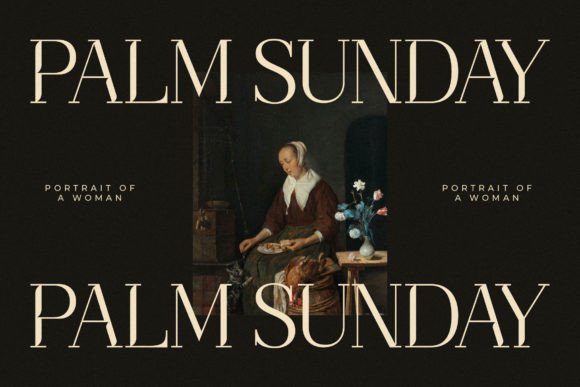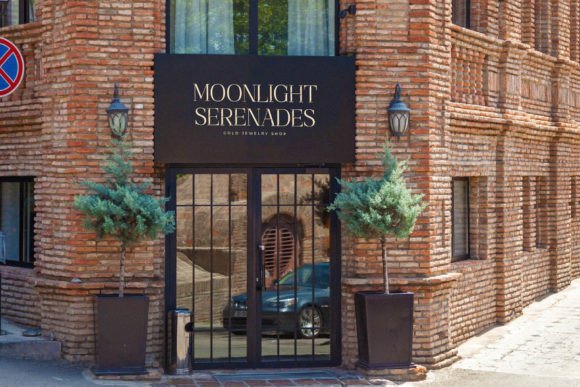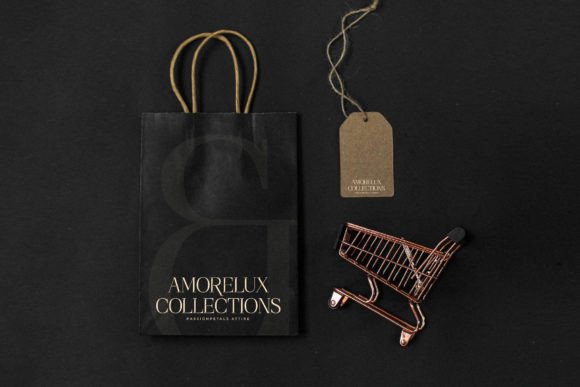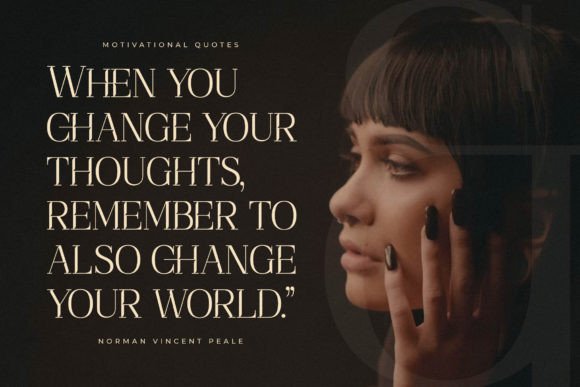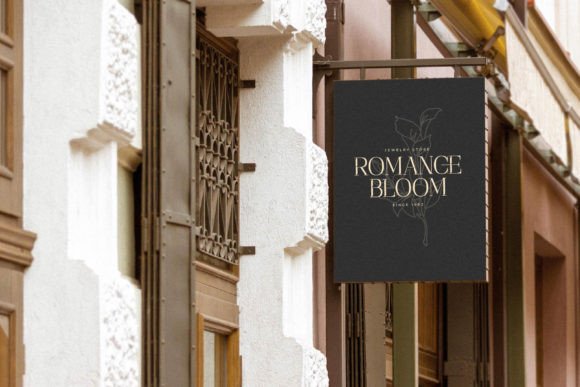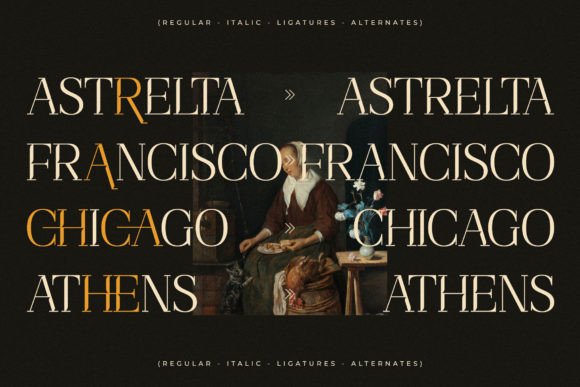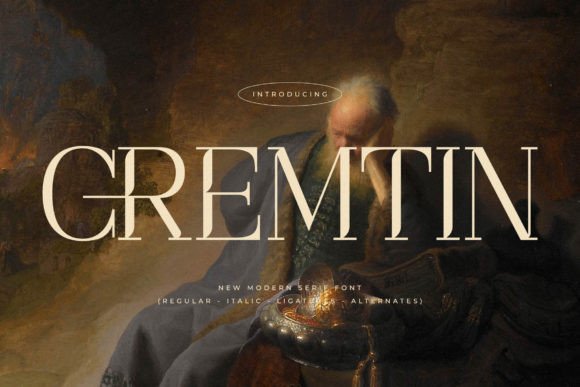
Cremtin Font: Elevate Your Designs with Elegance and Sophistication
In the world of typography, a well-crafted font can make all the difference in elevating your design to new heights. Introducing Cremtin Typeface, a stunning serif font created by Storytype that embodies the perfect blend of modernity and classic elegance. With its unique style and modern look, Cremtin Font is the ideal choice for designers and crafters seeking to add a touch of luxury and sophistication to their projects.
A Modern Classic: The Cremtin Typeface
Cremtin Font boasts a distinctive design that sets it apart from other serif typefaces. Its clean lines, precise curves, and balanced proportions create a harmonious visual experience that exudes refinement and poise. Whether you’re working on a logo, book or movie title, fashion brand, magazine, or clothing design, Cremtin Font provides the perfect foundation for creating visually stunning and cohesive branding.
One of the most exciting aspects of Cremtin Font is its versatility. This incredible typeface can be used for a wide range of applications, including:
• Elegant logos and branding: Create a lasting impression with Cremtin Font’s sophisticated and luxurious feel.
• Book and movie titles: Add a touch of classic glamour to your titles with Cremtin Font’s refined and elegant design.
• Fashion brands: Elevate your fashion brand with Cremtin Font’s modern and stylish aesthetic.
• Magazines and publications: Use Cremtin Font to add a level of sophistication and elegance to your magazine or publication.
• Clothing and apparel: Create eye-catching and stylish designs for clothing and accessories with Cremtin Font.
• Lettering and quotes: Add a touch of personality and flair to your lettering and quotes with Cremtin Font’s unique style.
Why Choose Cremtin Font?
So, what sets Cremtin Font apart from other typefaces? Here are just a few reasons why designers and crafters are falling in love with this incredible font:
• Unique style: Cremtin Font boasts a distinctive design that is both modern and classic, making it perfect for designers seeking to create unique and eye-catching designs.
• High-quality design: Crafted with precision and attention to detail, Cremtin Font is a high-quality typeface that will elevate your designs to new heights.
• Versatility: With its wide range of applications, Cremtin Font is an incredibly versatile typeface that can be used for a variety of projects.
• Elegance and sophistication: Cremtin Font exudes elegance and sophistication, making it perfect for designers seeking to create luxurious and refined designs.
If you’re looking for a typeface that will take your designs to the next level, look no further than Cremtin Font. With its unique style, modern look, and endless creative possibilities, Cremtin Font is the perfect choice for designers and crafters seeking to add a touch of elegance and sophistication to their projects.